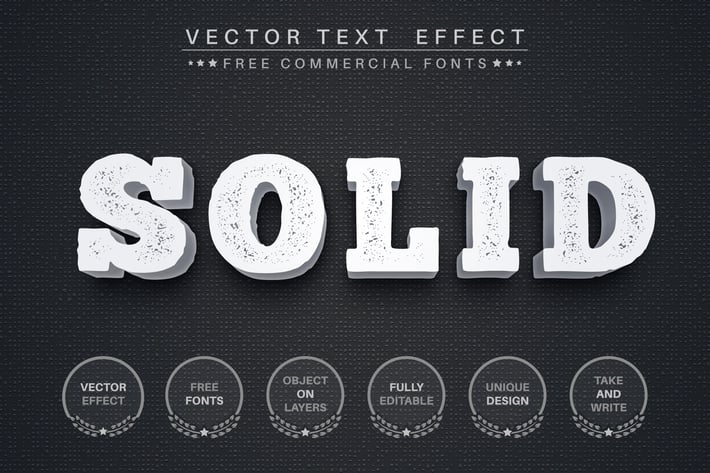
3D stone - editable text effect, font style
Hello! I'm happy to introduce my new text effect "3D stone". Be as creative as you like to be in expressing yourself using this unique “3D stone”. Effect is perfect for any project that needs a unique handy touch whatever else your imagination leads you to!